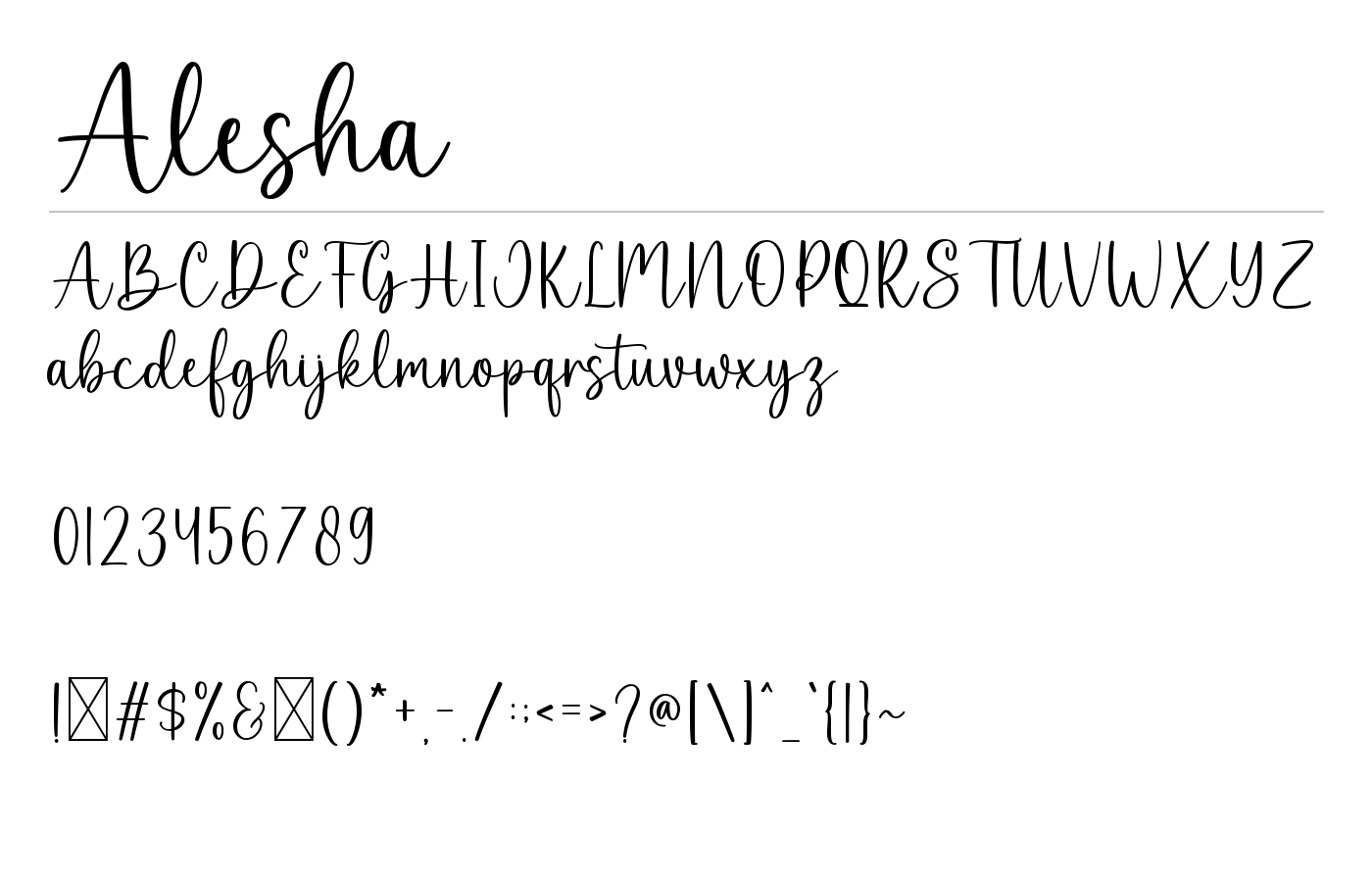
Alesha is a delicate and playful script font with a light, handwritten feel that features tall, narrow letterforms and graceful, looping strokes. Its elegant style and tall x-height make it perfect for adding a personal, stylish touch to invitations, branding, and editorial designs. This font works well for projects that want to convey friendliness and charm with a modern, artistic flair.
Alesha Font
About Alesha Font